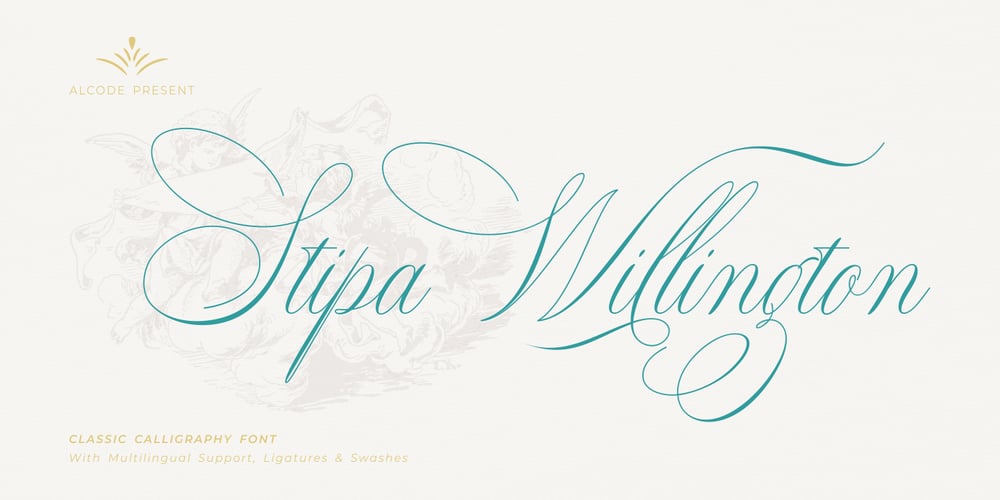
Stipa Willington Font Family was designed by Sukjana Almunandar and published by Alcode. Stipa Willington contains 1 styles and family package options. Stipa willington is a classic font I built it with my relaxed hands with the design of a classic font but having a modern element in it. It makes it particularly suitable for wedding media, book covers, greeting cards, logos, branding, business cards and certificates, in fact for any design work that requires a clasik, formal or luxury. Try Stipa willington, enjoy the richness of OpenType features and let her fun and elegant excitement make you happy and enhance your creativity! You can use this font very easily.